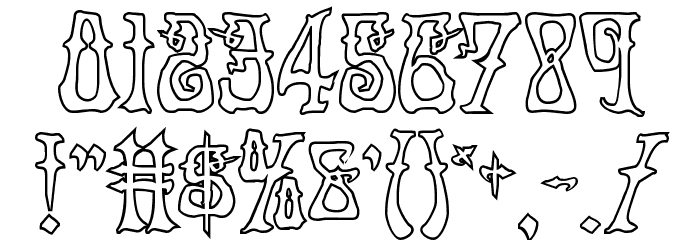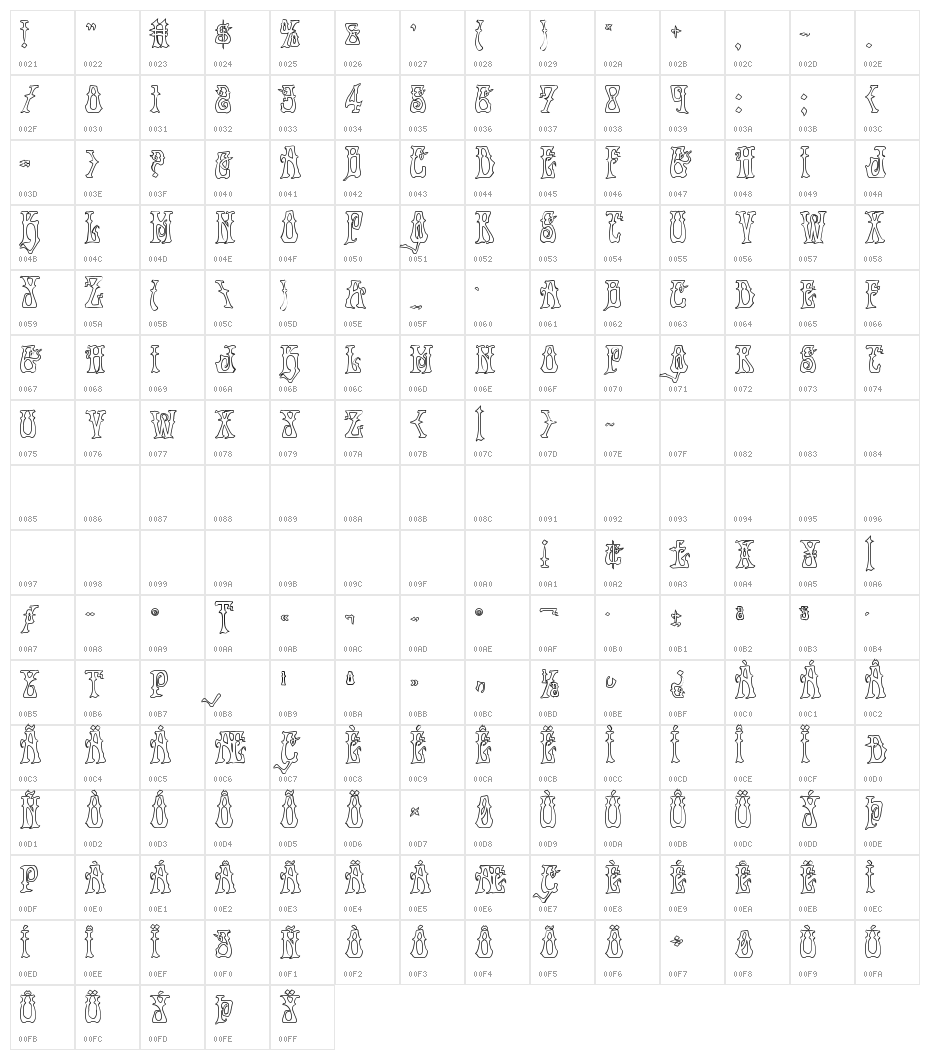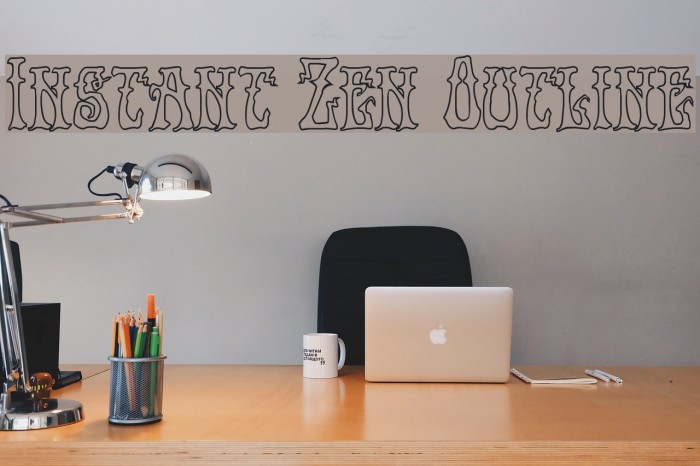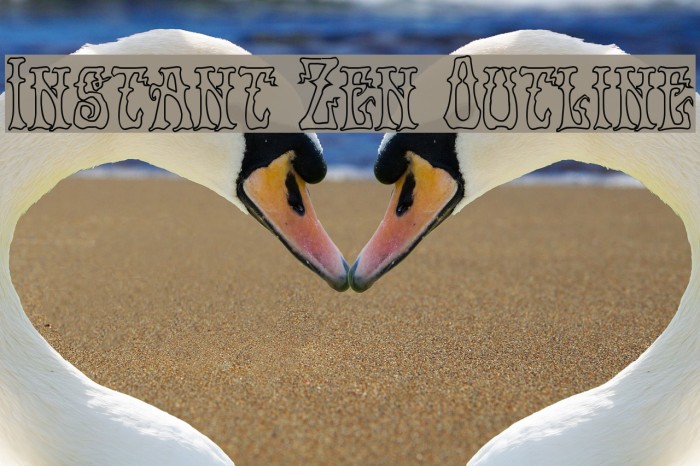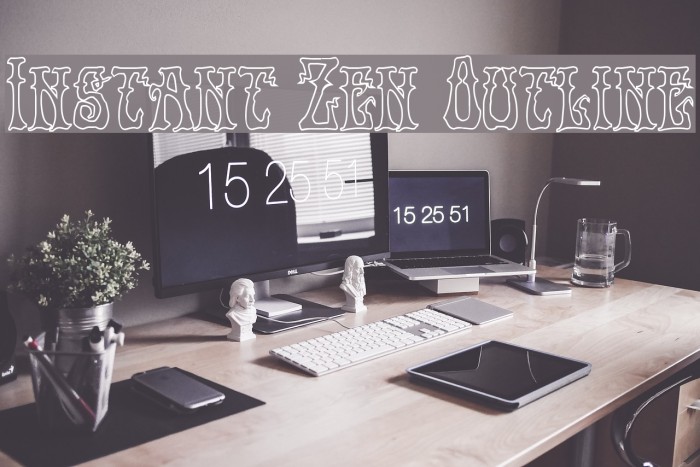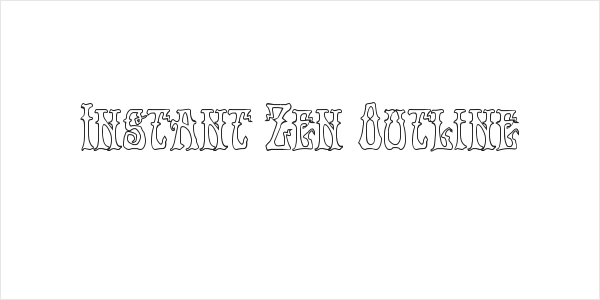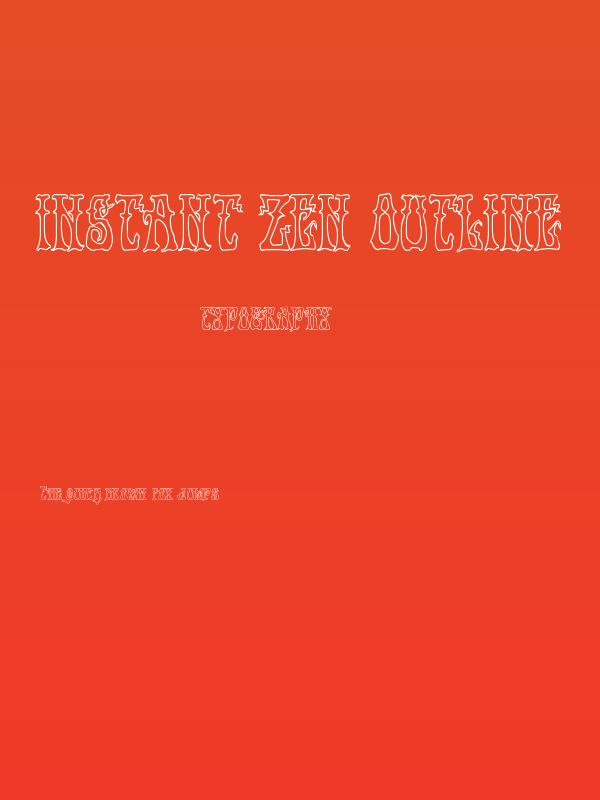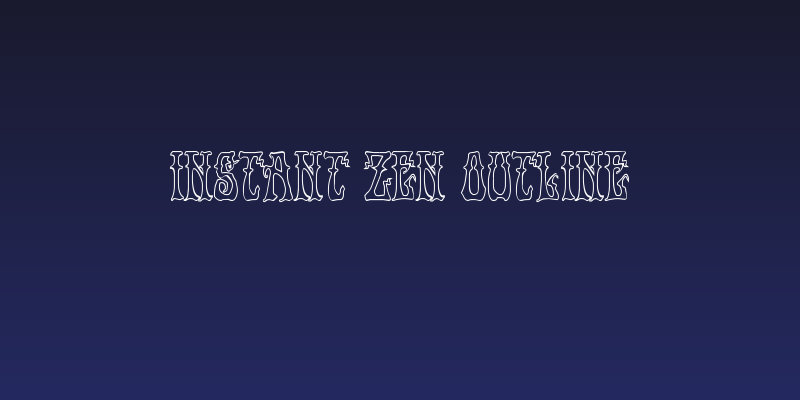
Instant Zen Outline Font
Instant Zen Outline Description
This font features a unique and artistic outline style that combines elements of both modern and vintage aesthetics. The characters are bold and decorative, with intricate detailing that gives each letter a distinct personality. The uppercase and lowercase letters maintain a consistent design, while the numbers and special characters complement the overall style. The font's outline nature provides a sense of openness and creativity, making it ideal for projects that require a standout, artistic touch. Its elaborate design suggests a handcrafted feel, adding a layer of sophistication and elegance.
| Proposed Projects | Ideal for posters, album covers, branding, and any creative projects that require a distinctive and artistic touch. |